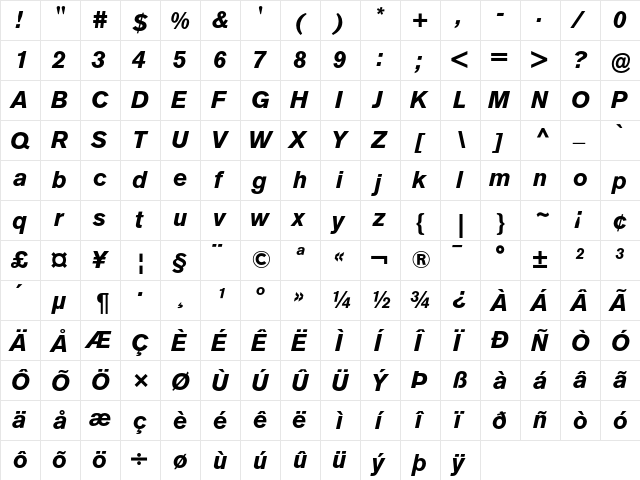
Berthold Akzidenz Grotesk BE Bold Italic Font Preview
Design Context for Berthold Akzidenz Grotesk BE Typeface
Berthold Akzidenz Grotesk BE has the quiet confidence of well-executed sans-serif typography: versatile, unobtrusive, and dependable at any size. The dynamic lean of this cut emphasises speed and emphasis in any layout. The heavy weight commands attention and anchors typographic hierarchies.
Well-suited to navigation labels, product packaging, and anywhere legibility at scale is essential.
Font Pairing: Use Berthold Akzidenz Grotesk BE for headlines alongside a lighter-weight sans or serif for body copy to establish clear visual hierarchy.
Pro Tip: Use Berthold Akzidenz Grotesk BE for UI labels, navigation, and short-form body copy where clean legibility is the priority.